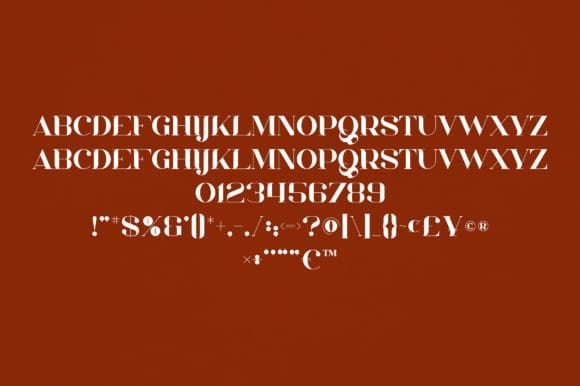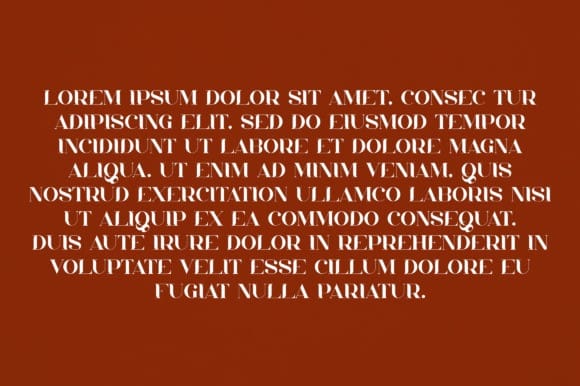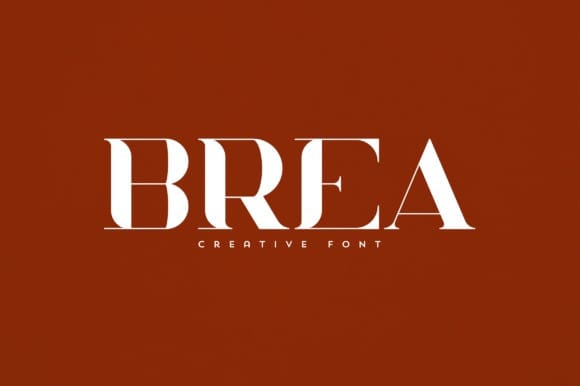
Brea Font
Brea Font is an elegant and versatile font that will make your typography truly unique! It will enchant every logo, branding, headline, or plain text!